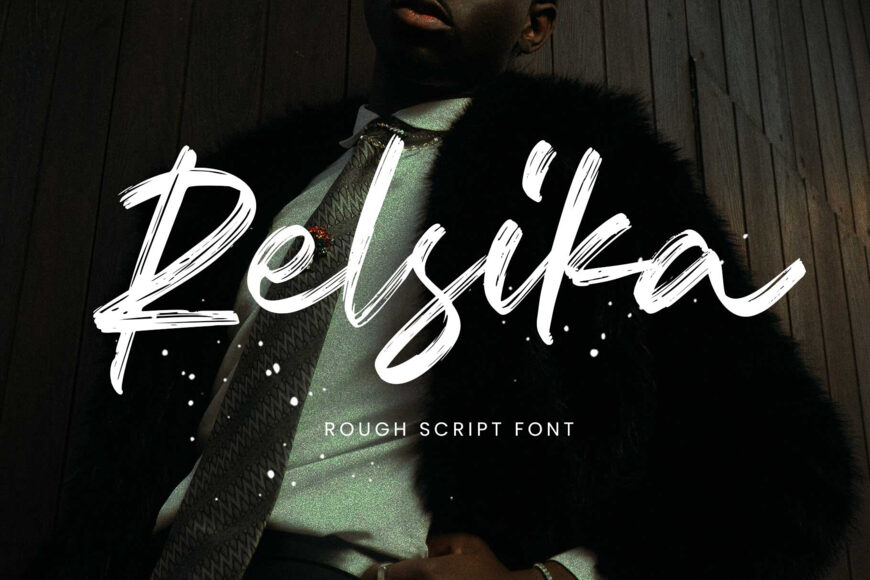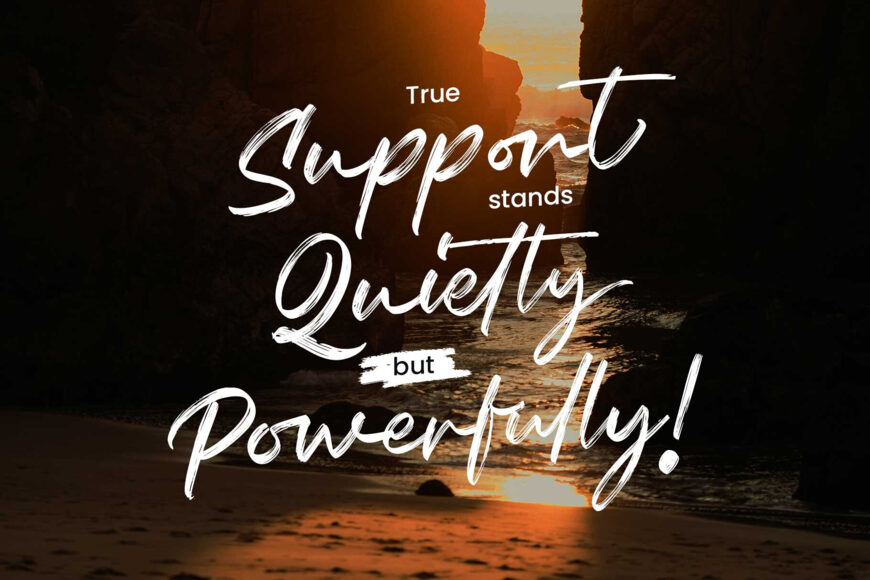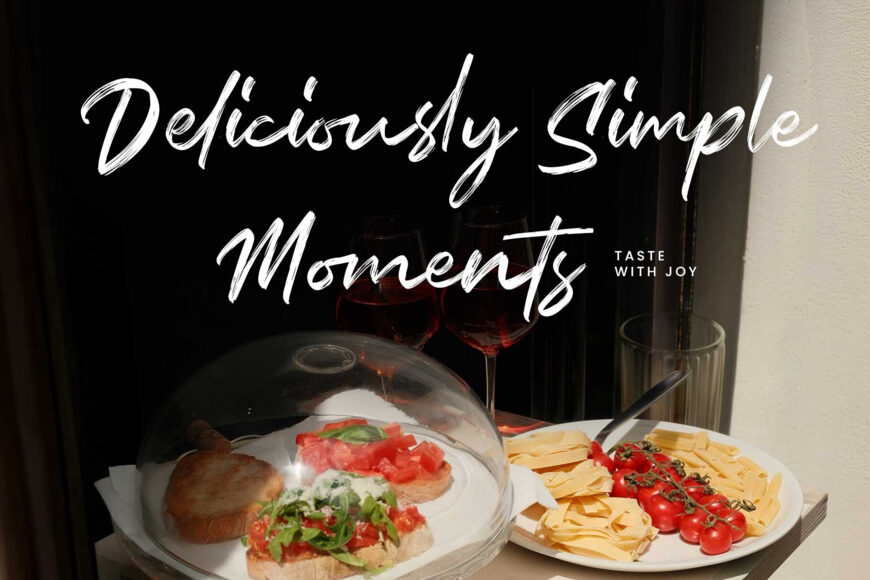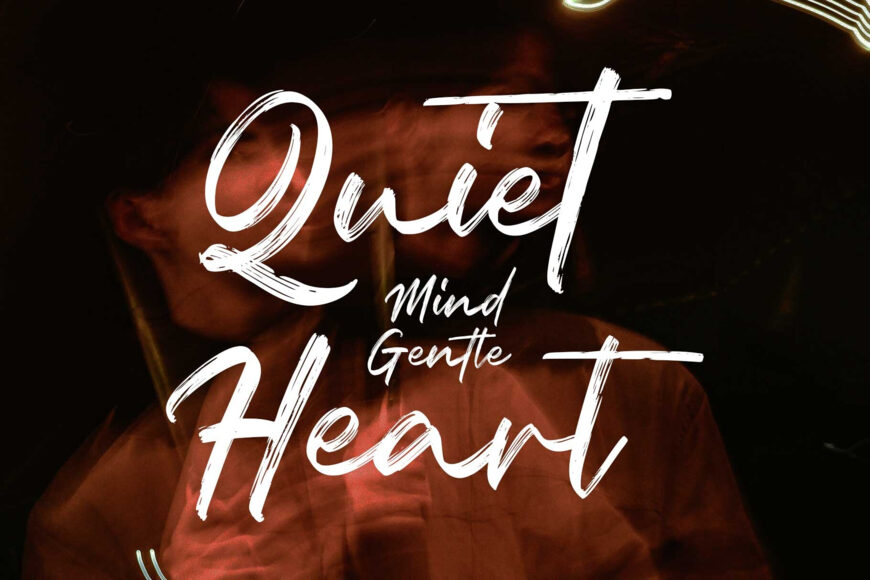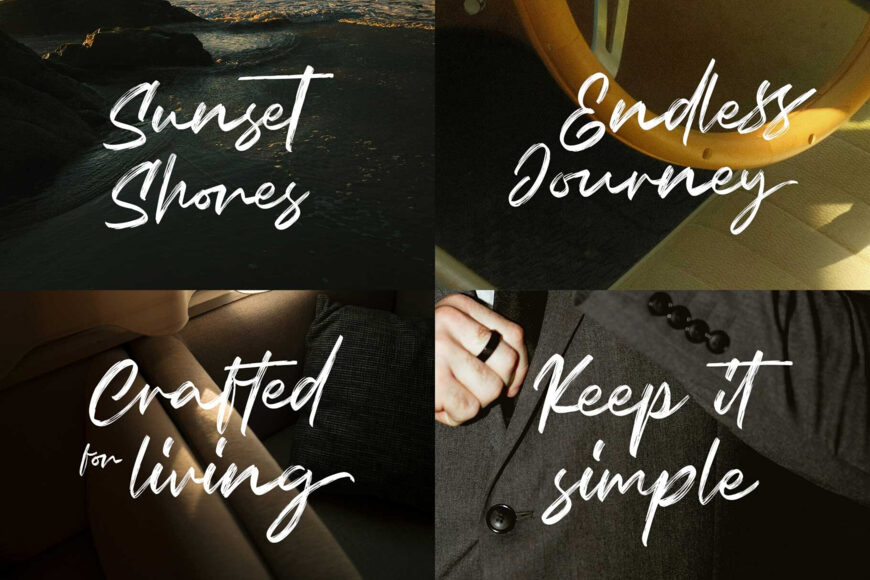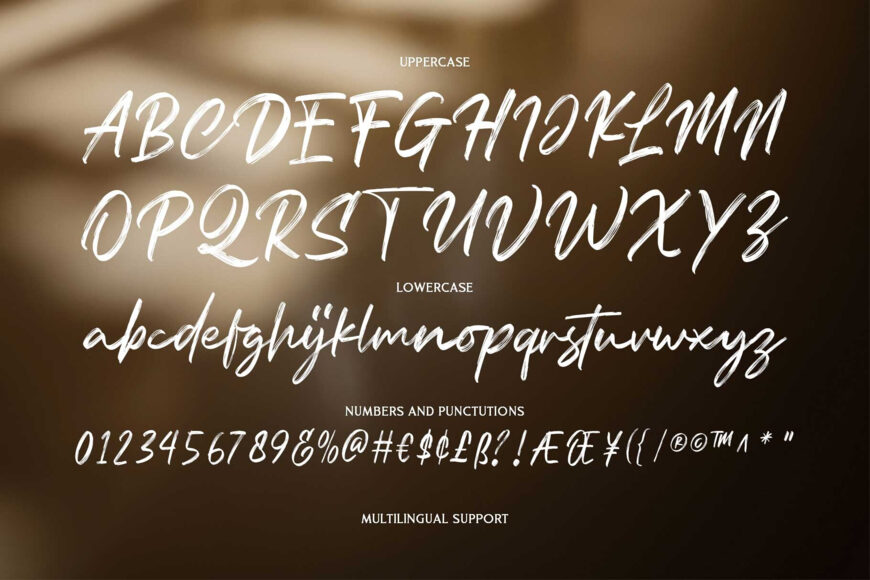
This Relsika typeface captures the frantic, beautiful energy of street art and luxury fashion combined, featuring aggressive strokes and visible bristle marks. It is the definitive choice for music album covers, streetwear branding, and high-impact social media graphics.
The Relsika font doesn’t just sit on the page; it explodes off it, providing a visceral, tactile feel to your digital designs. Pair the Relsika typeface with sleek, monochrome photography or vibrant neon accents to lean into its rebellious nature.